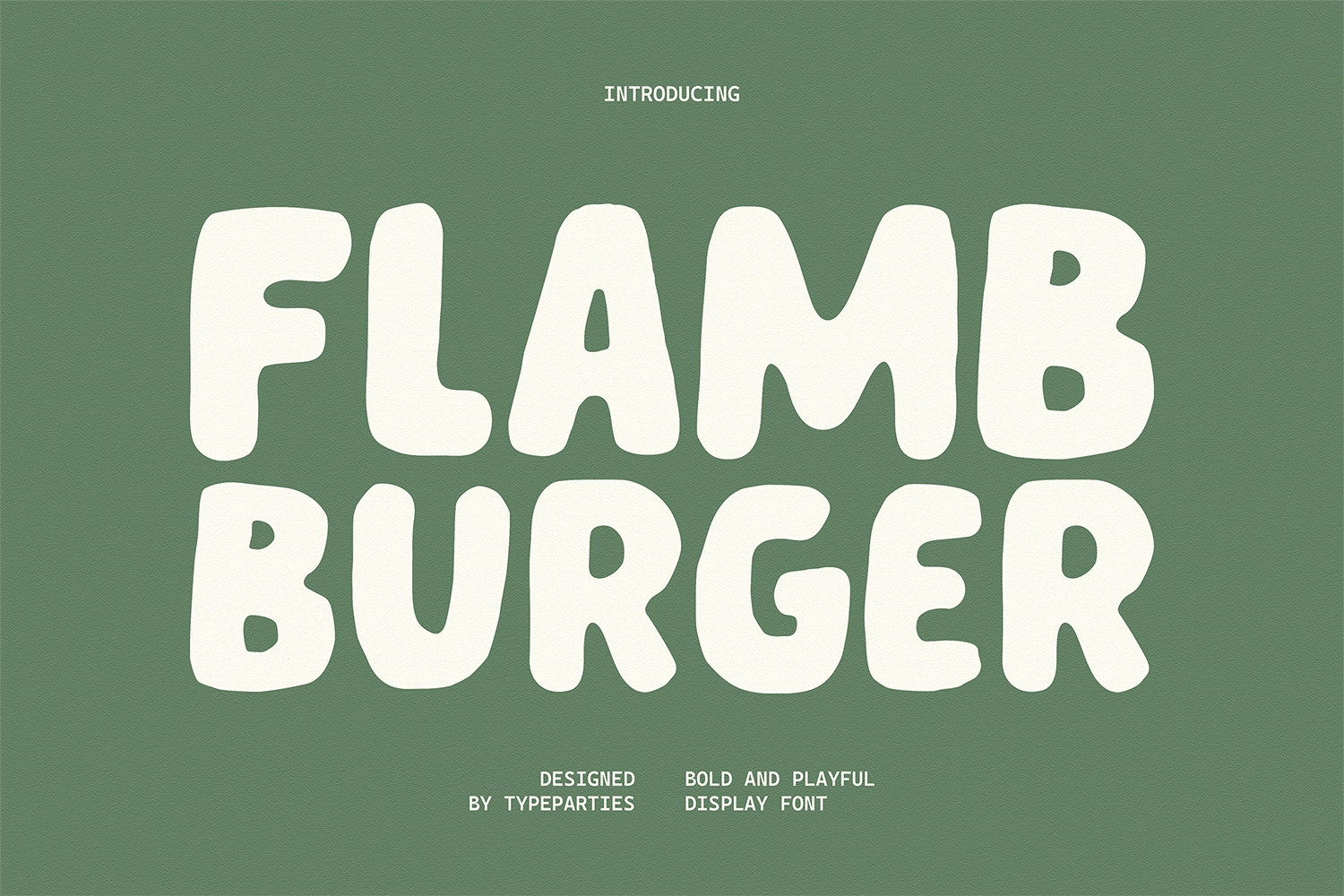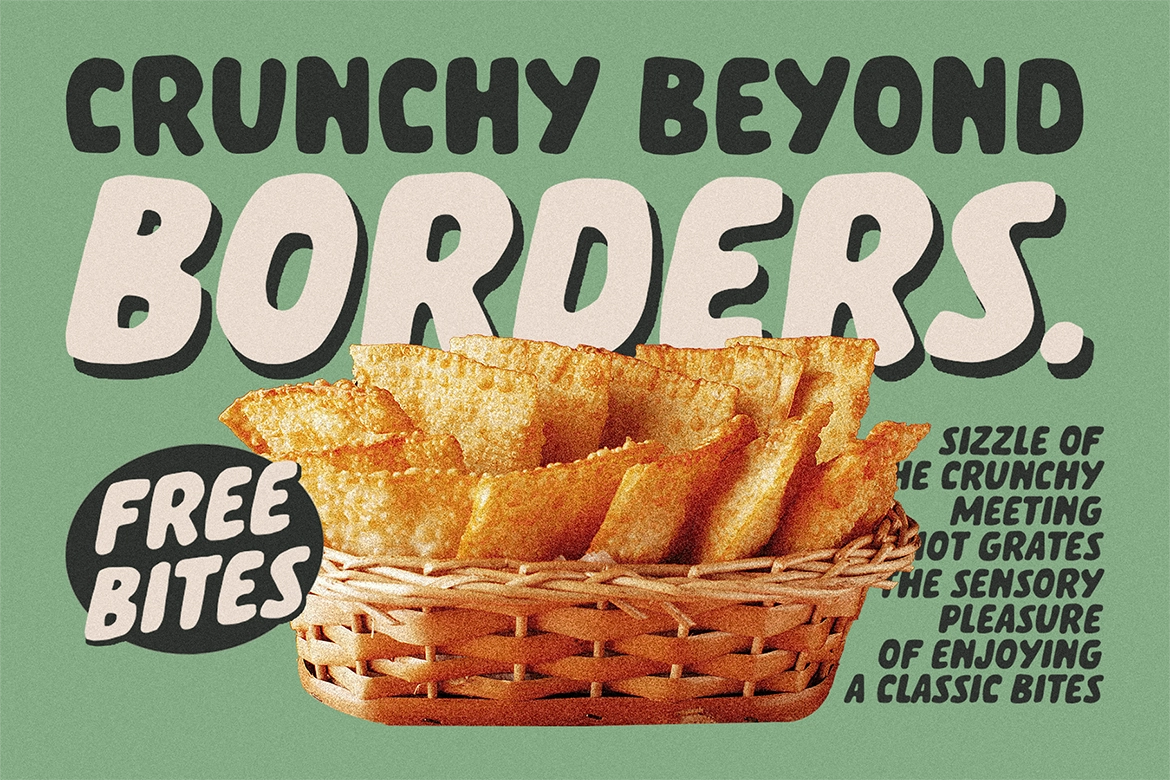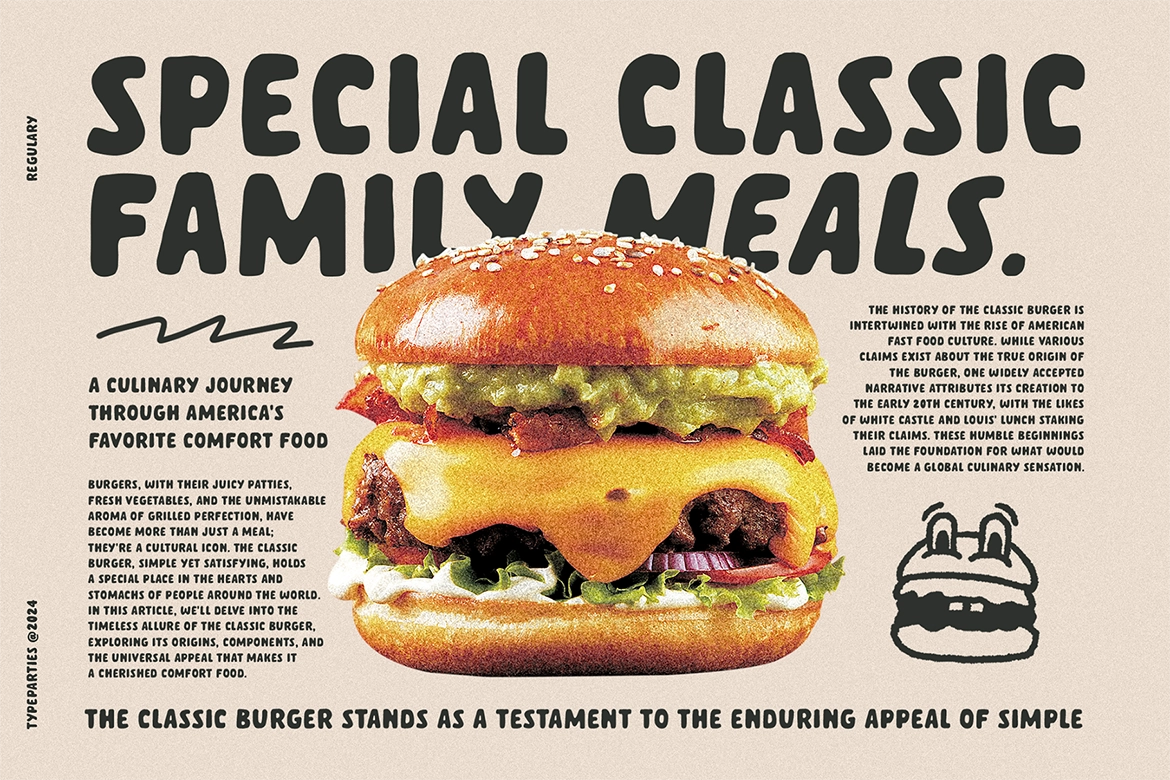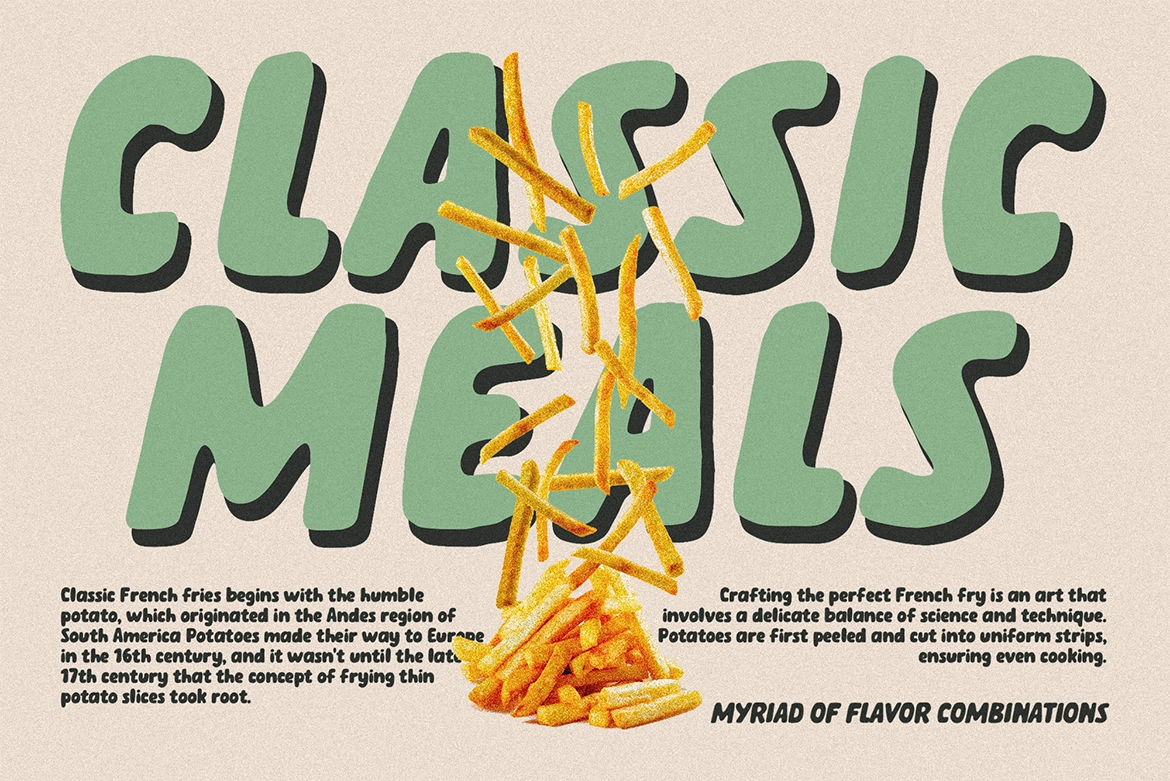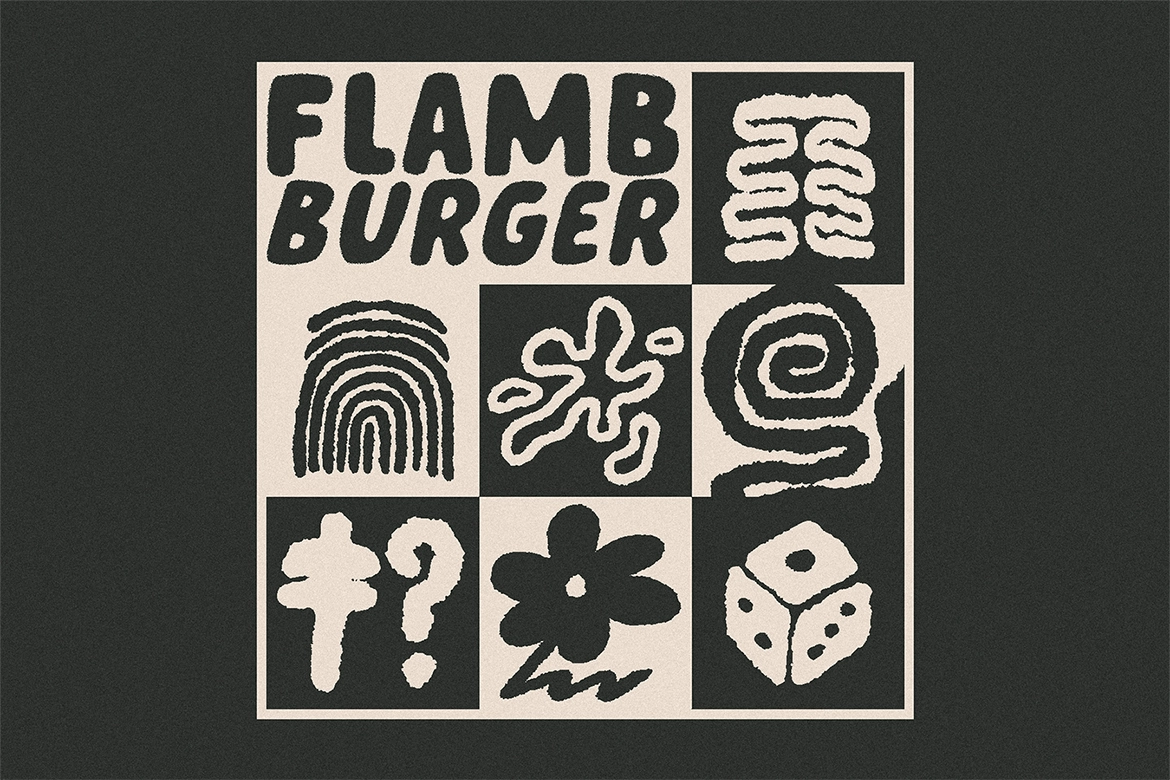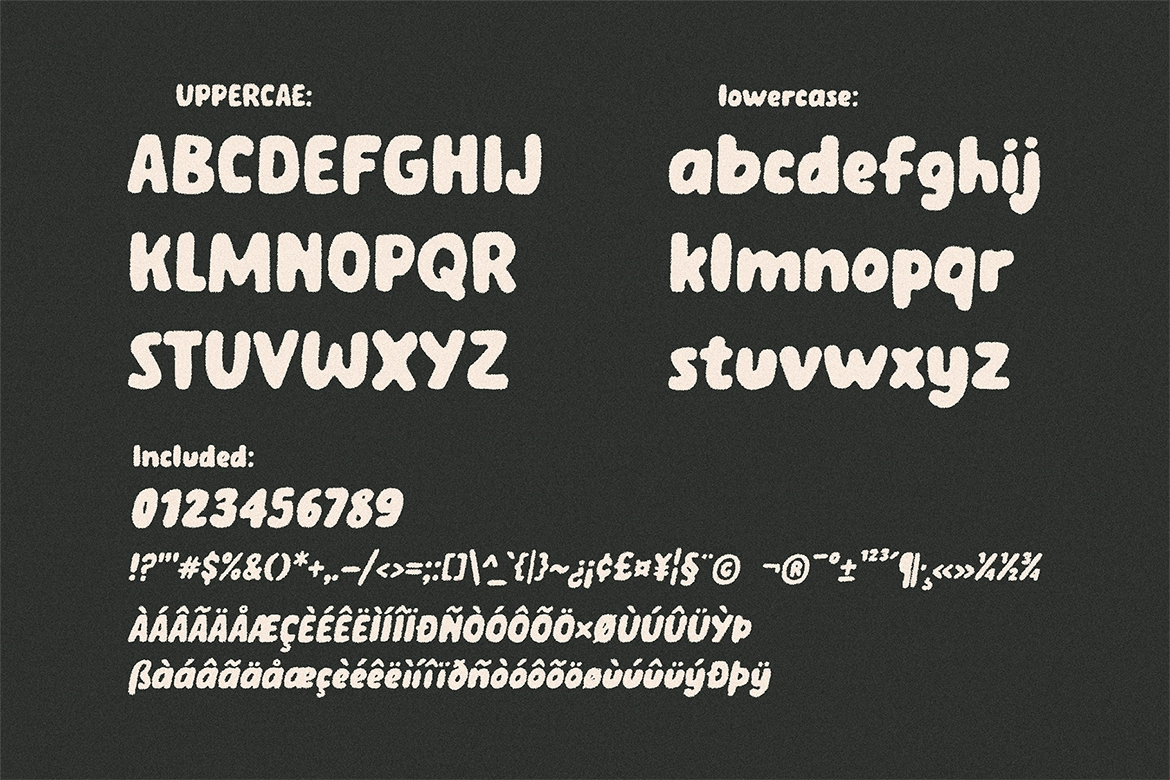
Flamb Burger - Fun Playful Font
Add a dash of personality to your designs with Flamb Burger – Fun Playful Font , a bold handwritten typeface that celebrates imperfection and creativity. Unlike overly polished fonts, Flamb Burger embraces the charm of natural handwriting — full of quirks, curves, and a warm human touch. Each letter feels spontaneous and dynamic, capturing the spirit of casual notes and lively doodles. This authentic, hand‑drawn texture gives your design an expressive, friendly look that stands out in logos, posters, product packaging, and social media graphics.
Flamb Burger – Fun Playful Font brings originality to any project, breaking away from the mechanical precision of traditional typefaces. It’s the perfect choice for creatives who want to inject joy, energy, and individuality into their visual storytelling.